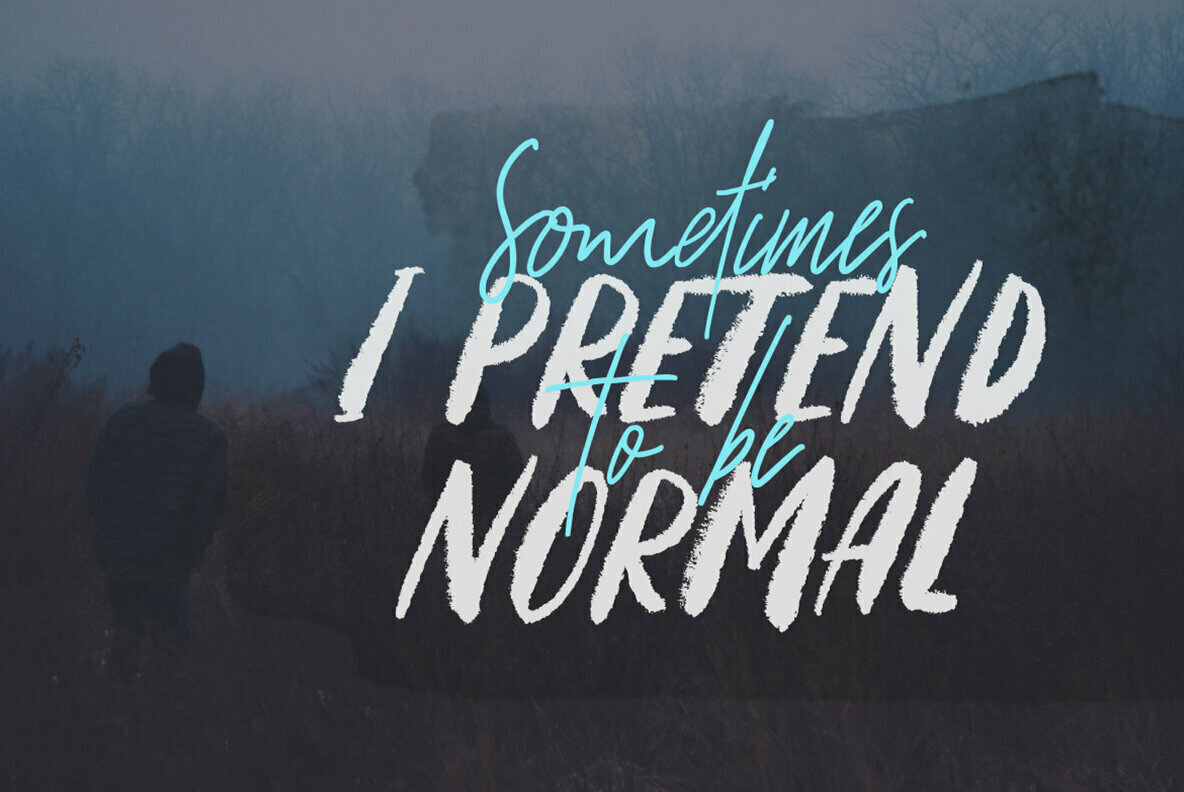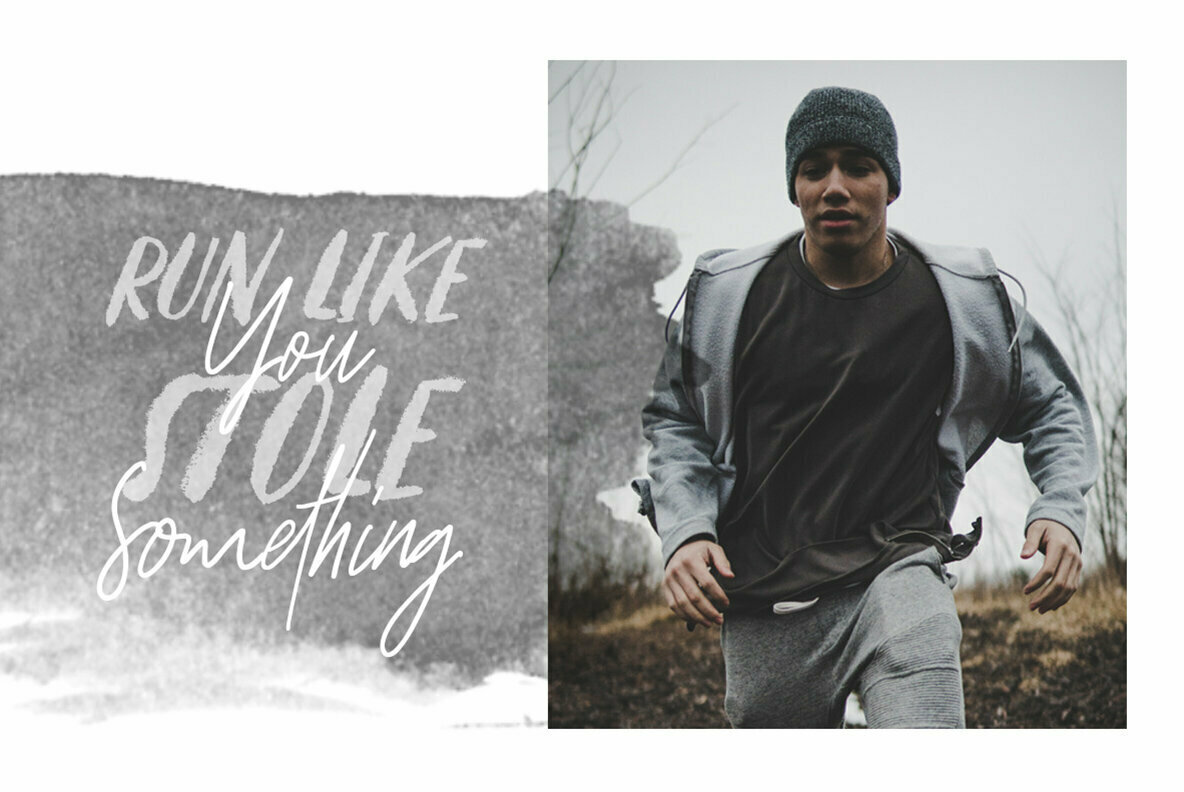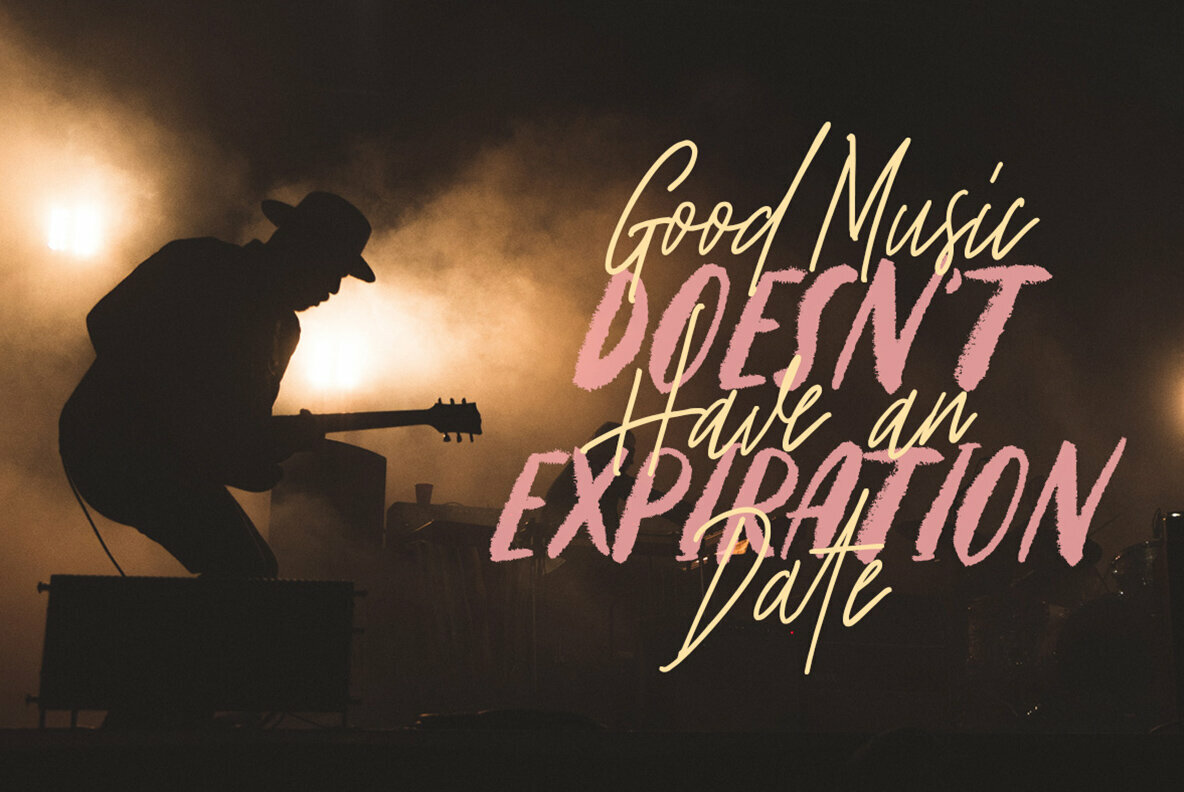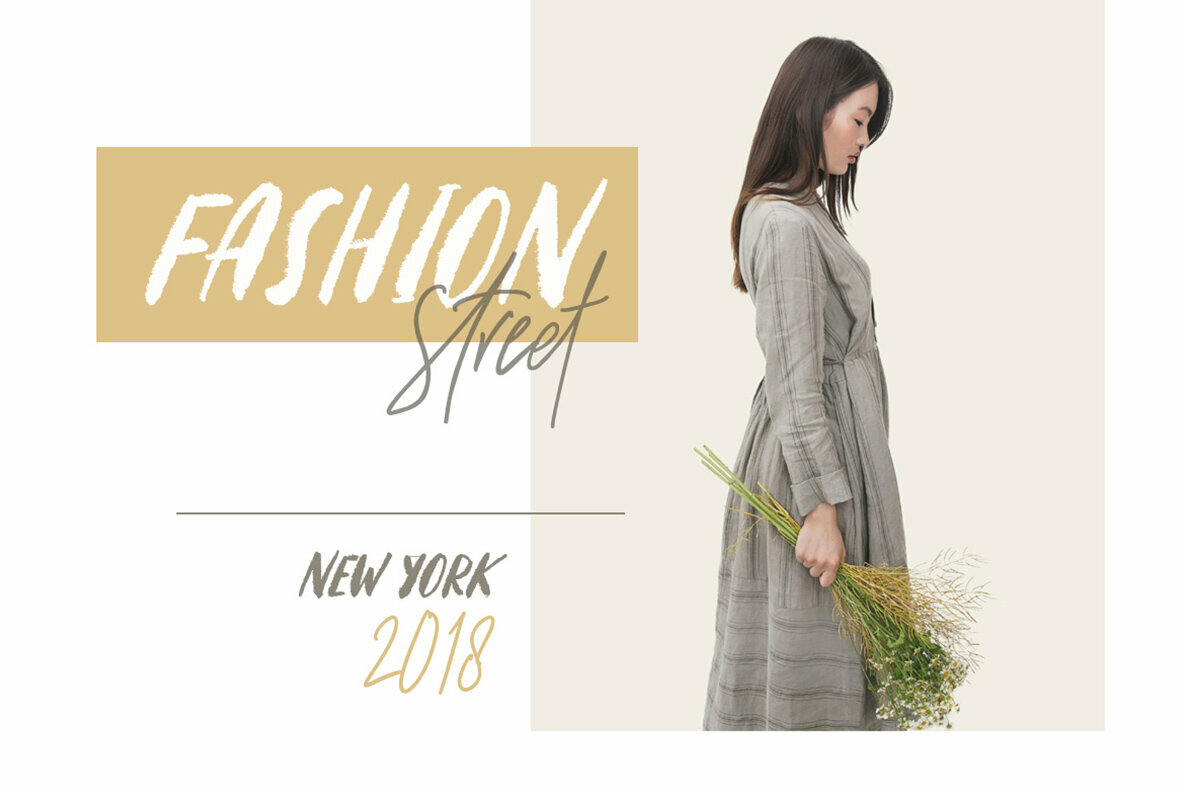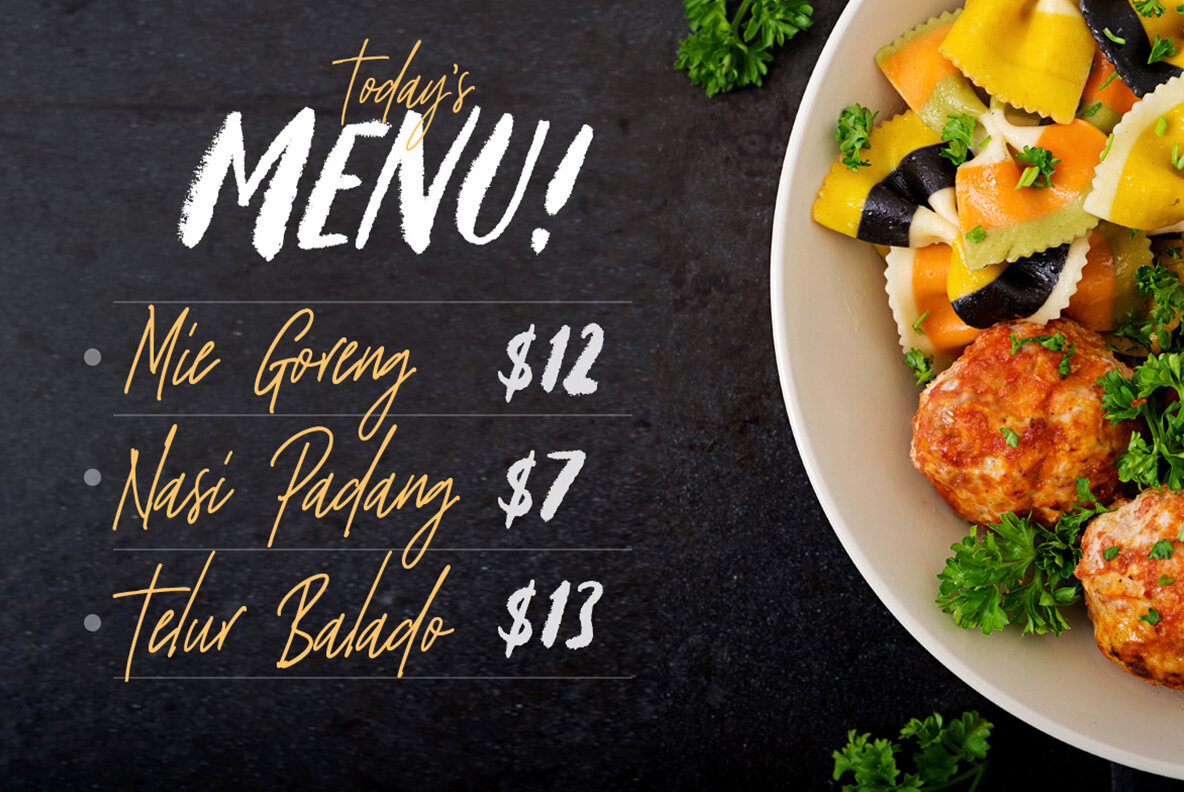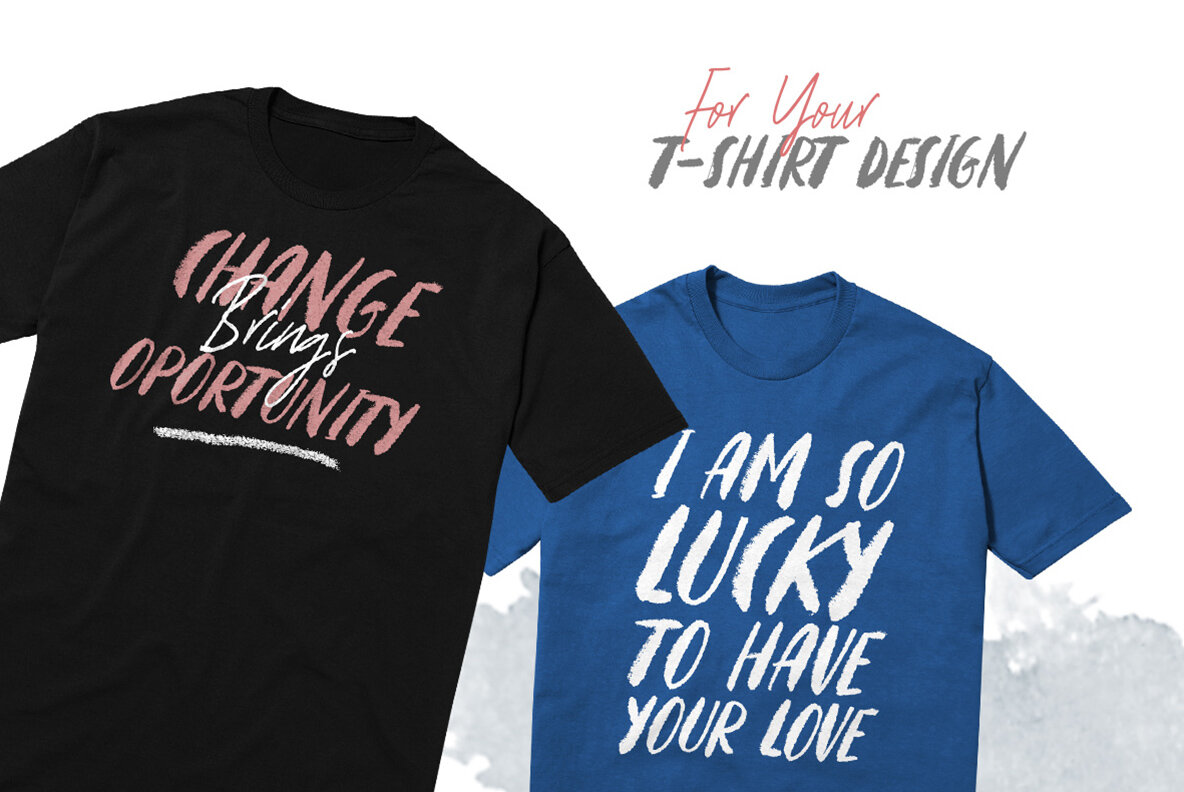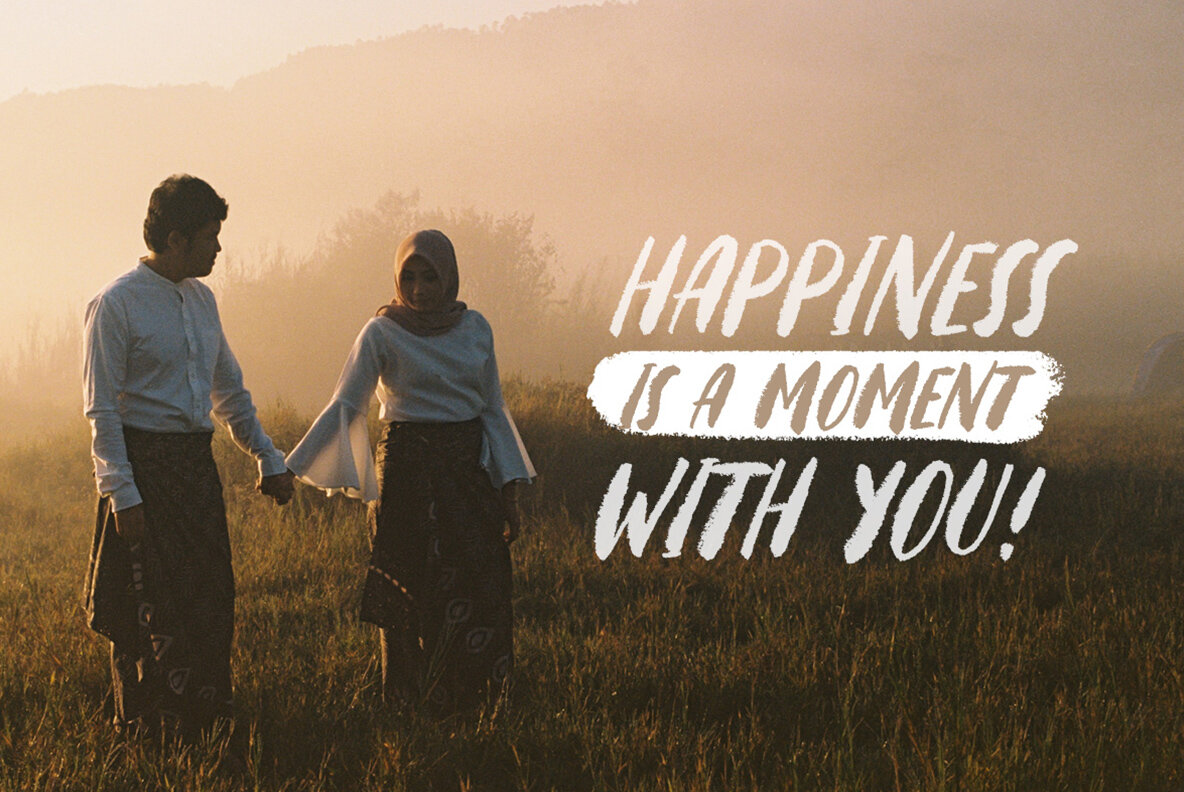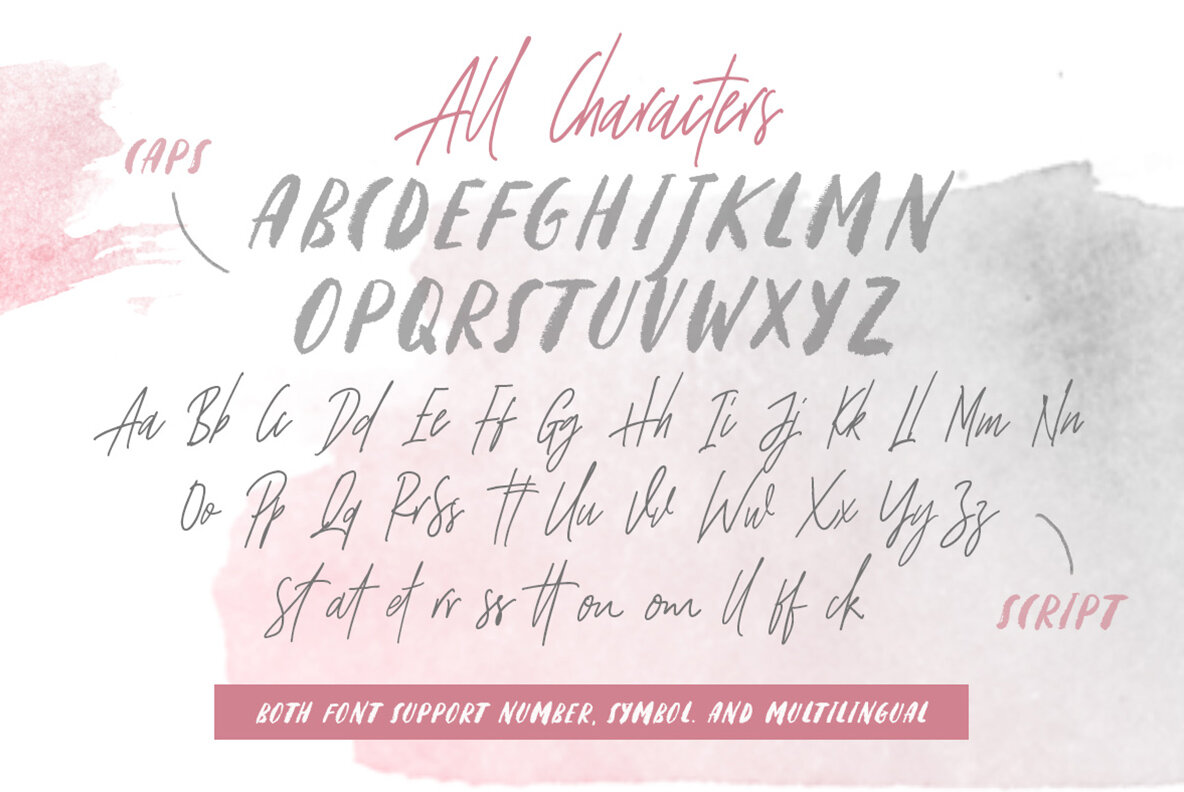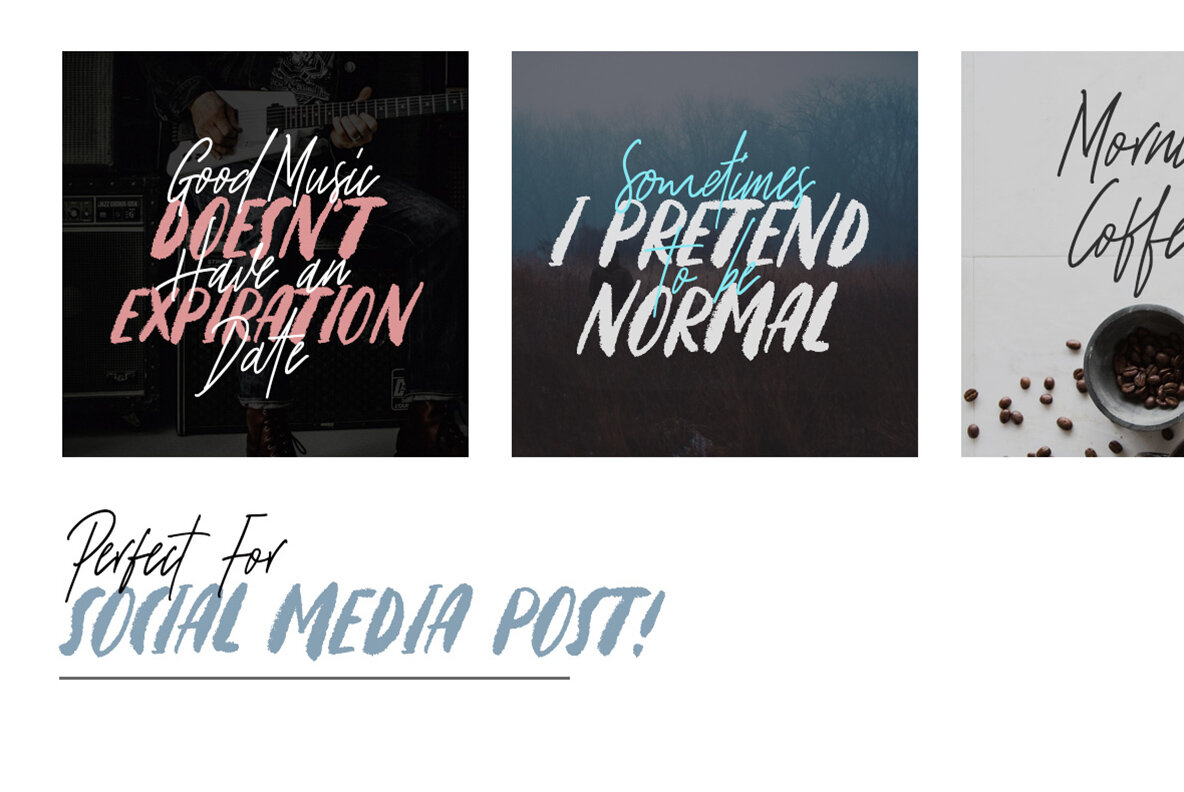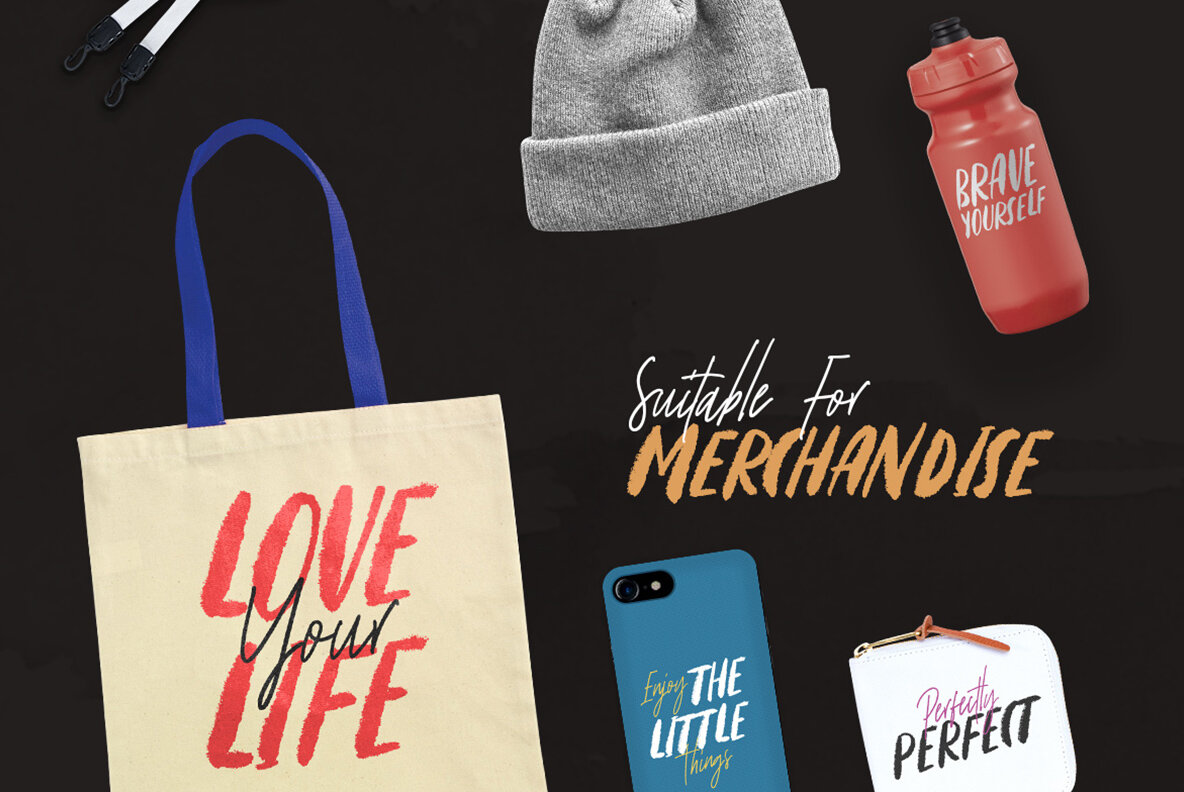
Strong Heart Font Duo
Strong Heart Caps
Strong Heart Script
Embrace versatility with the Strong Heart Font Duo, a seamless combination of script and caps that injects character into any design project. The script font exudes warmth with its flowing ligatures, lending a touch of authenticity akin to handwritten signatures. Meanwhile, the caps boast robust forms that provide a solid foundation, making this duo a versatile tool for graphic designers.Strong Heart Font Duo: A Harmonious Blend